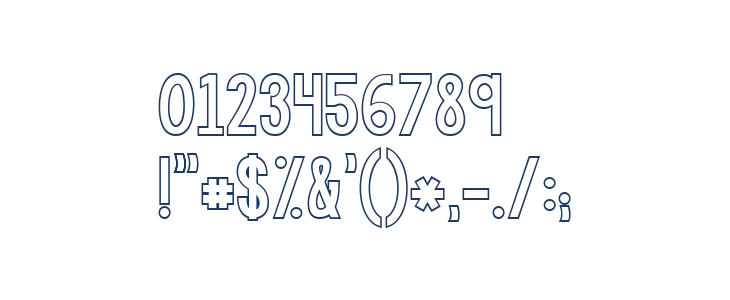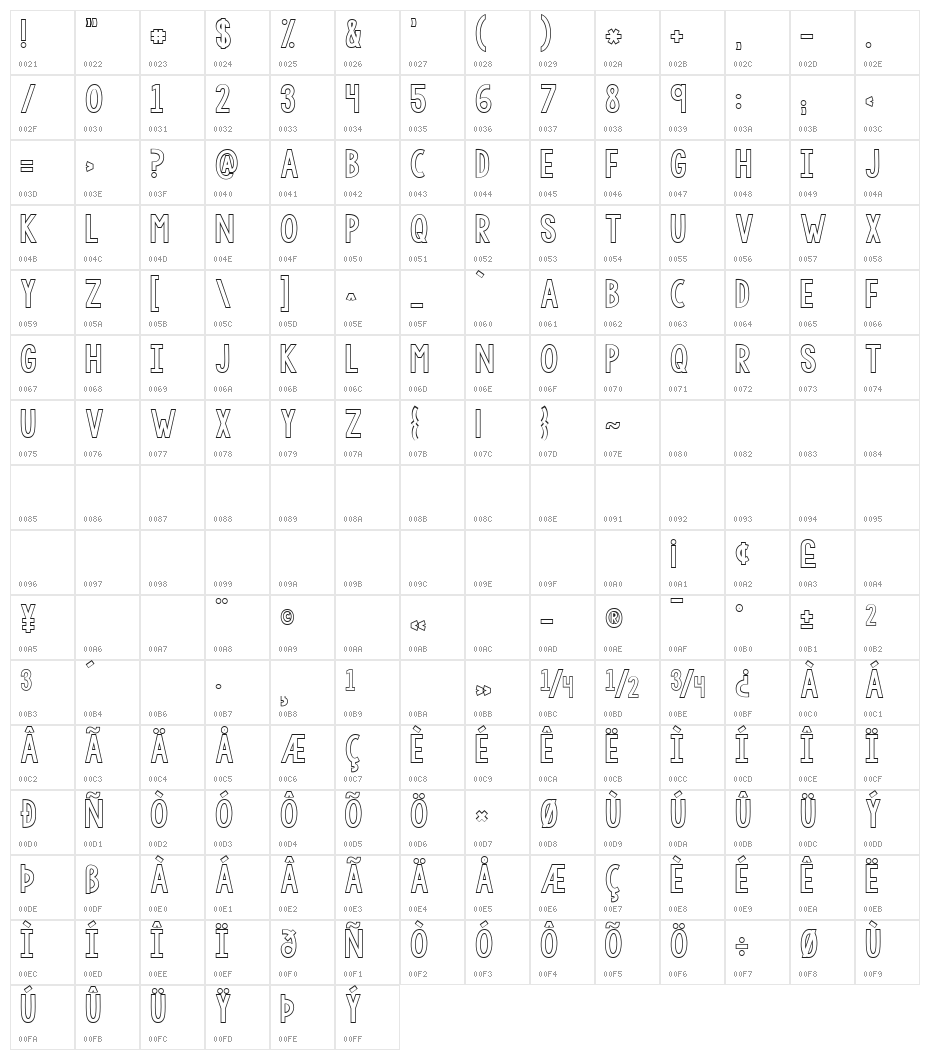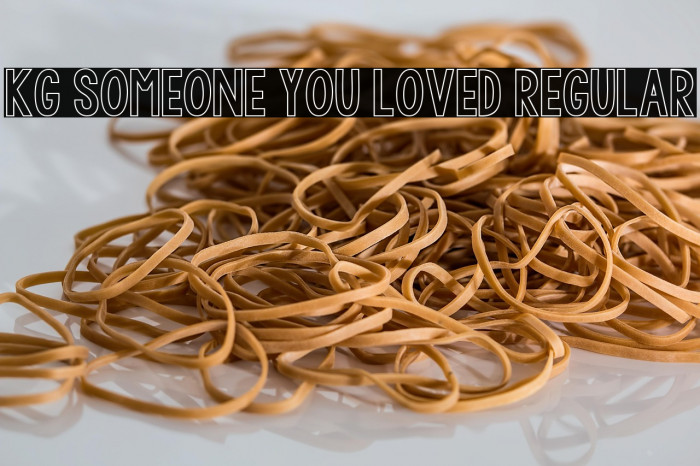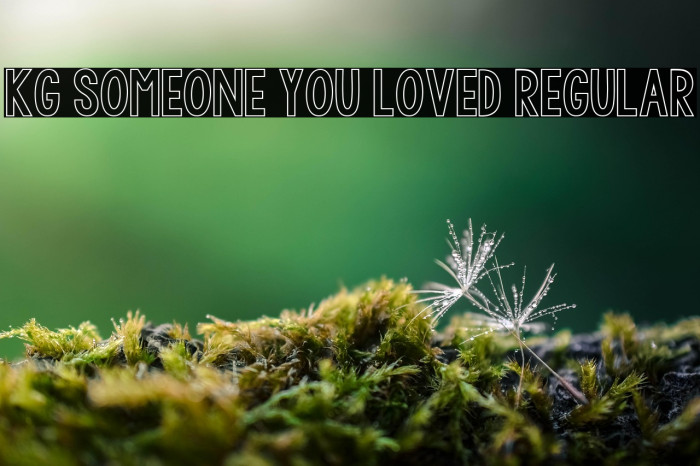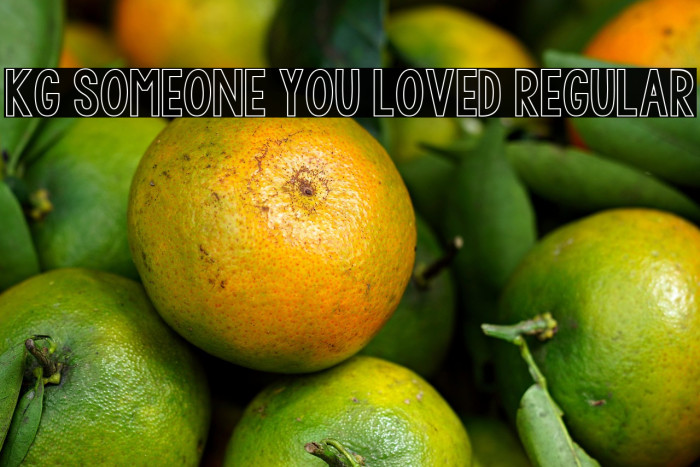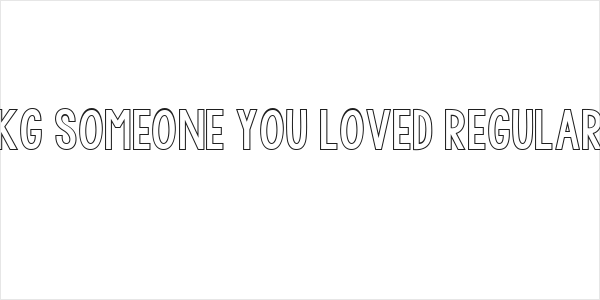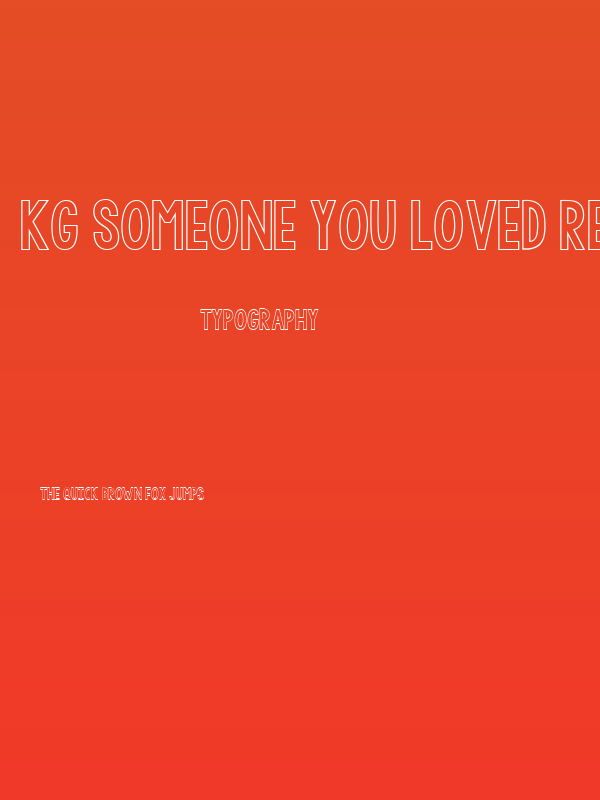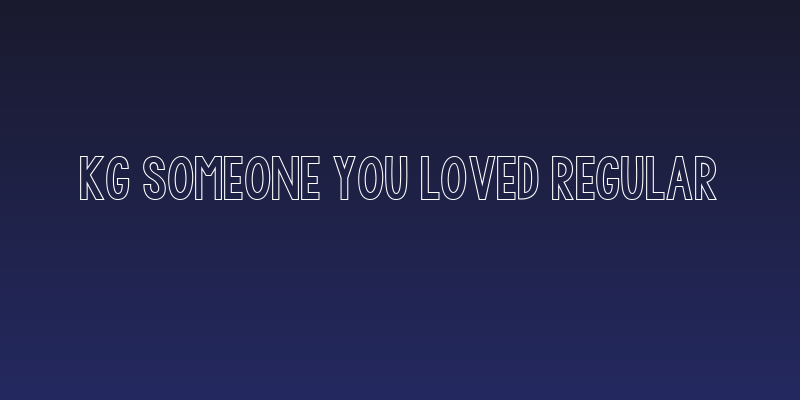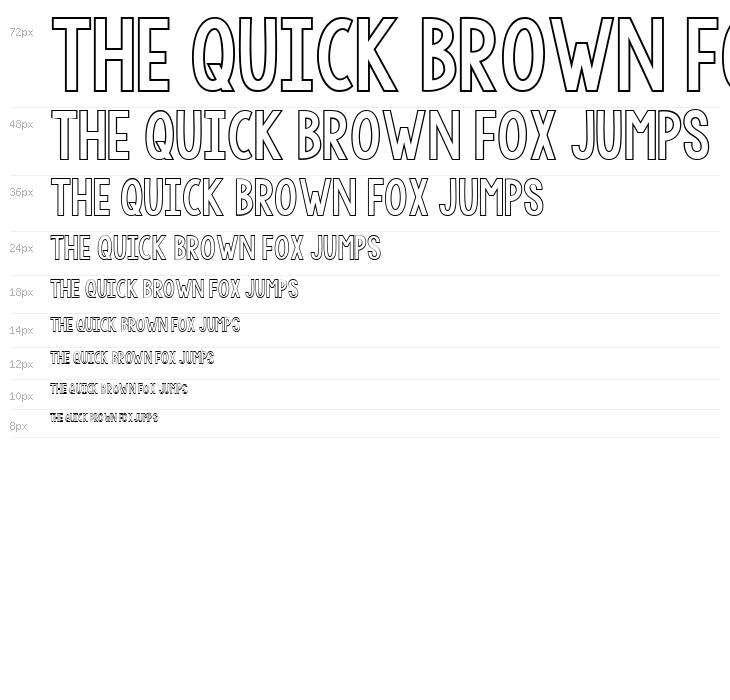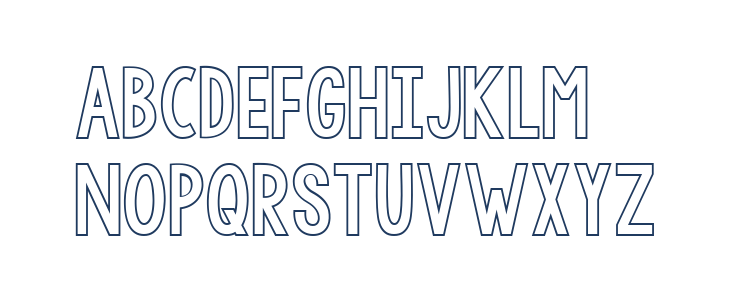
KG Someone You Loved Regular Font
KG Someone You Loved Regular Description
This font features a bold, outlined style that gives it a striking and modern appearance. The uppercase and lowercase letters are well-proportioned, with consistent stroke widths that create a cohesive look. The numerals and special characters maintain the same outlined design, ensuring uniformity across all characters. The font's clean lines and geometric shapes make it highly legible, even at smaller sizes. Its boldness and clarity make it suitable for a variety of design projects where a strong visual impact is desired.
| Proposed Projects | Ideal for posters, headlines, logos, and branding materials where a modern and bold statement is needed. |